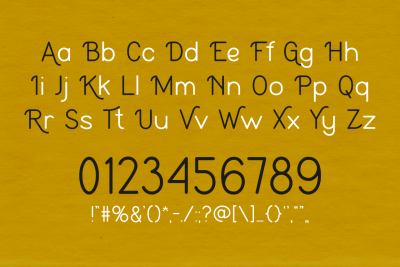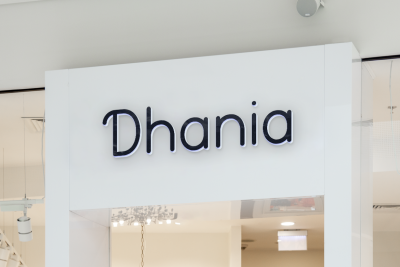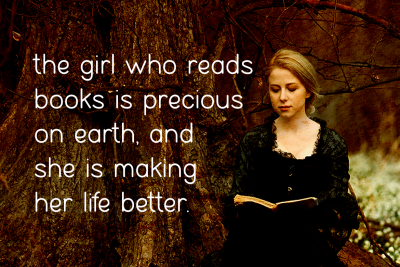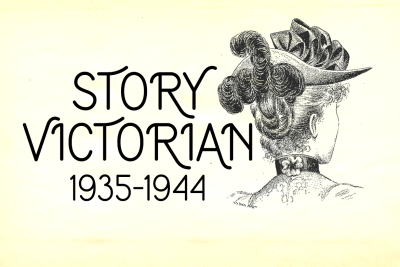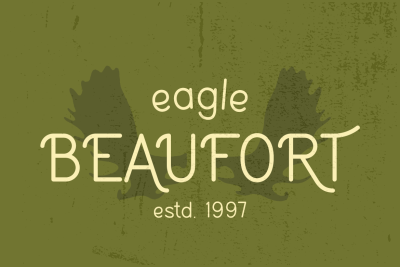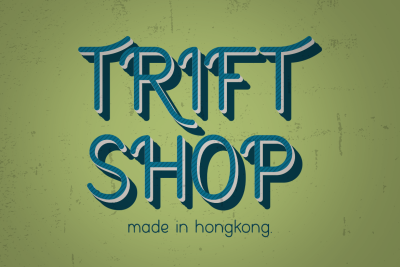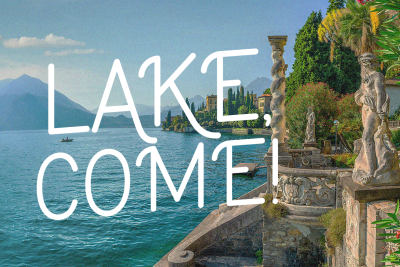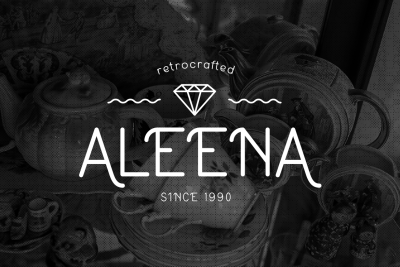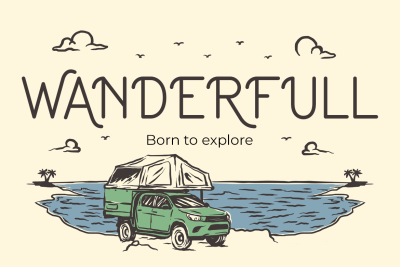
Cute Font Ardhita is a sleek and minimalist typeface designed to bring clarity and personality to any design. Its simple yet stylish curves offer a clean and contemporary look, while the soft, rounded edges add a playful touch. This combination makes it an ideal font for modern designs that aim to convey both professionalism and approachability.
The unique design of this font is ensures high readability across various formats, whether it’s in print or digital. Its balanced proportions and smooth lines make it versatile, fitting perfectly into a wide range of applications. From branding and advertising to website design, this font shines in projects where subtle sophistication is required. Its friendly tone and professional aesthetic make it suitable for audiences of all ages, delivering a polished yet approachable feel.
Cute Font Ardhita works beautifully in minimalist layouts. Its understated elegance pairs well with vibrant visuals or muted palettes, enhancing the overall design without overpowering other elements. Whether you’re creating a website header, a logo, or stylish editorial content, this font adds a modern and fresh vibe to your work.
Cute Font Ardhita is an excellent choice for professional designers looking for a versatile and stylish typeface. Its clean lines and subtle charm make it an invaluable tool for branding projects, such as logos, business cards, and product packaging. It is especially suitable for lifestyle brands, fashion labels, and startups that want to project a modern yet approachable identity.
Entrepreneurs in creative industries can also benefit from Cute Font Ardhitaโs contemporary design. Itโs ideal for crafting websites, app interfaces, and promotional materials that require a professional but friendly appearance. Its minimalist look ensures that your message remains the focus while still adding an aesthetic appeal.
For lifestyle bloggers and content creators, Cute Font Ardhita adds a touch of sophistication to social media posts, banners, and promotional graphics. Its simple elegance complements a variety of content themes, from travel and fashion to wellness and home decor. Additionally, its versatility makes it perfect for digital templates, presentations, and personal branding.
Cute Font Ardhita is also a great option for educators and students. Its clean and legible design works well for creating classroom materials, posters, and study guides. The playful edge adds a friendly tone that engages readers without sacrificing clarity.
Overall, Cute Font Ardhita is a must-have for anyone who values modern simplicity paired with a playful twist. Whether youโre designing for professional purposes or personal projects, this font is a reliable and stylish choice. It strikes the perfect balance between minimalism and charm, making it a versatile addition to any creative toolkit.